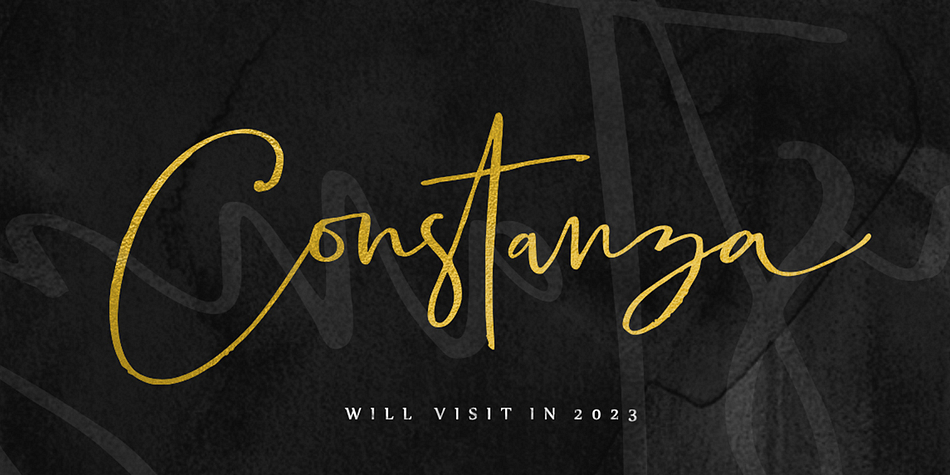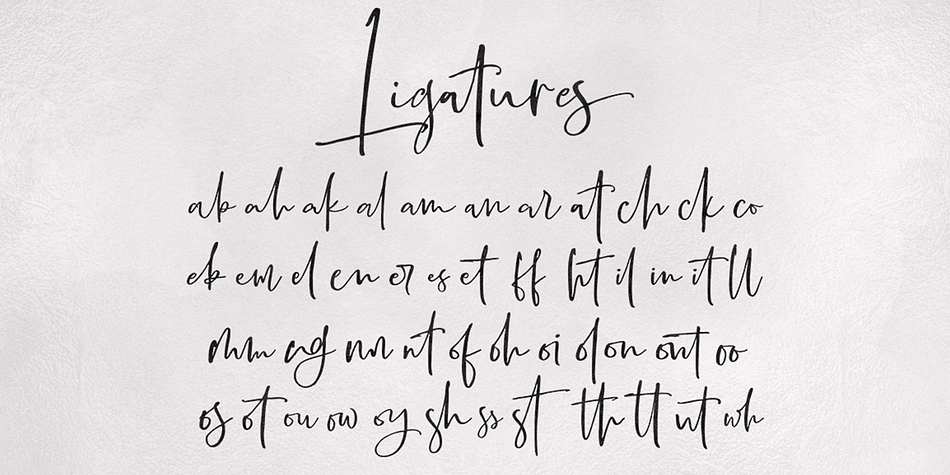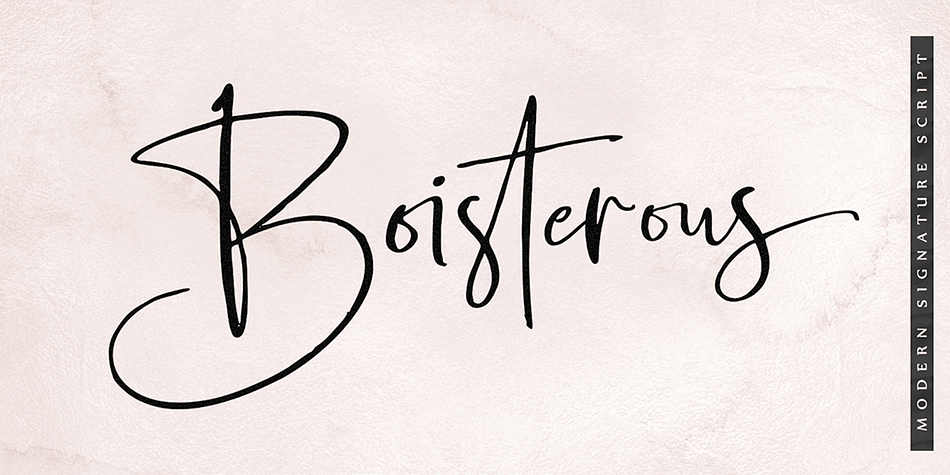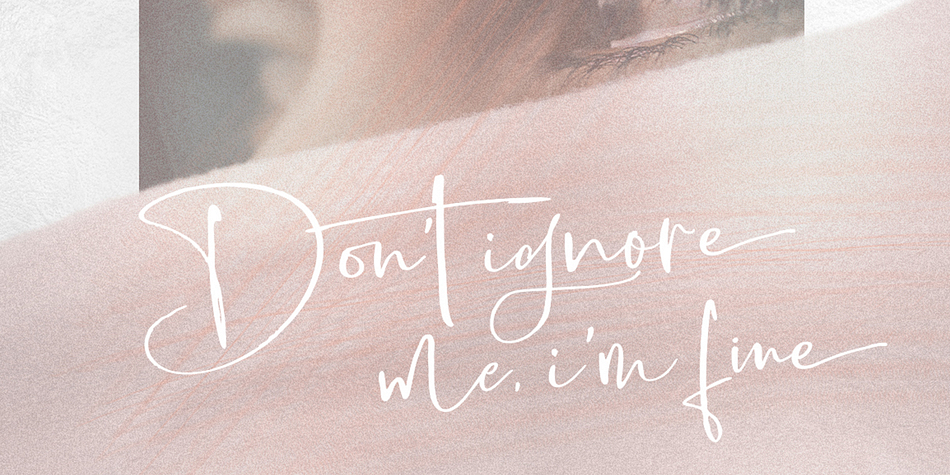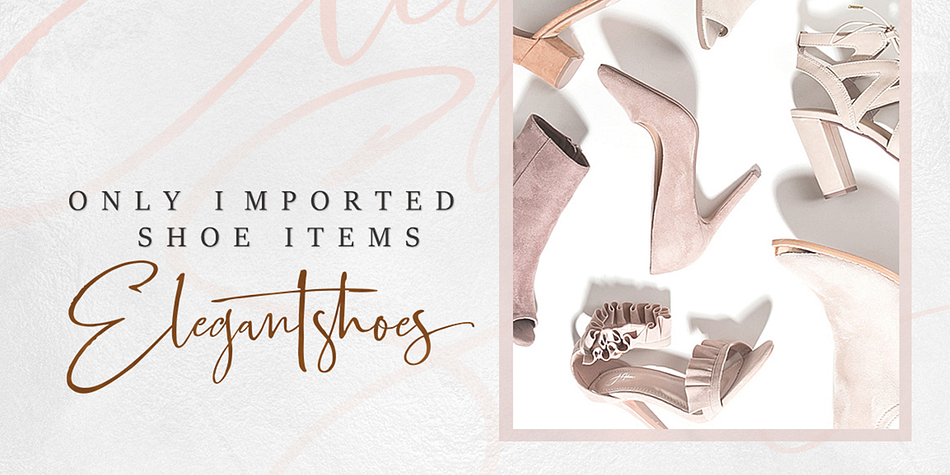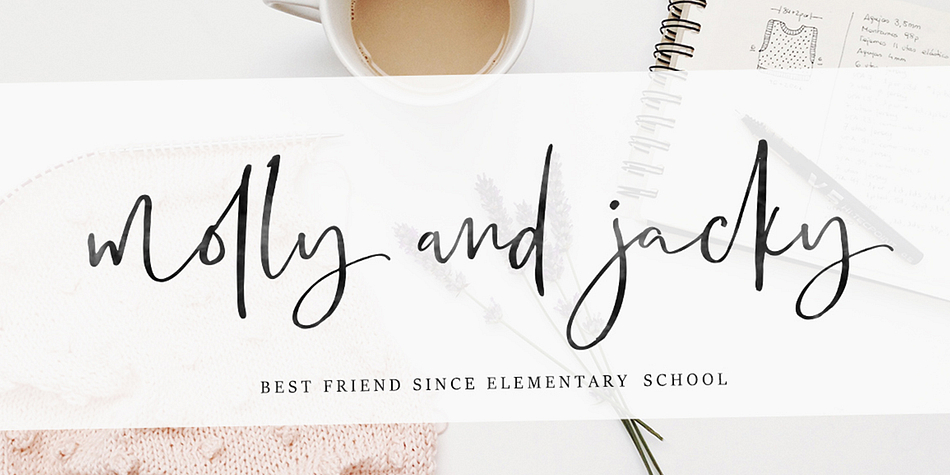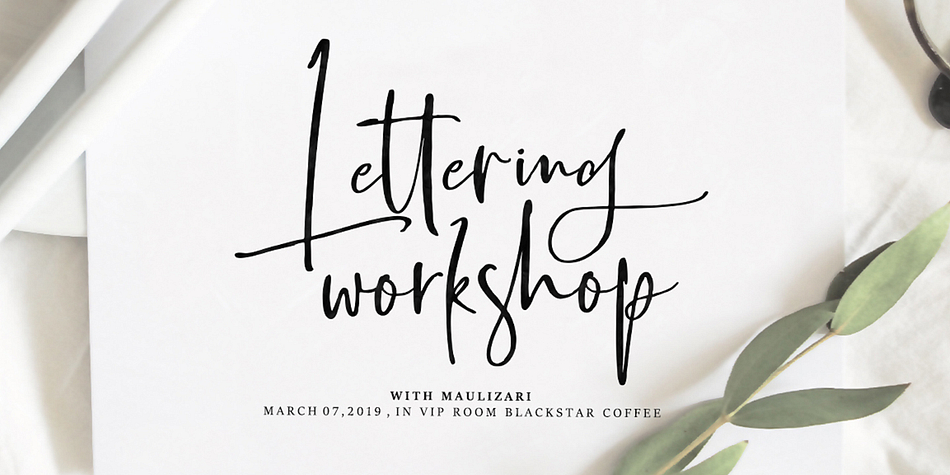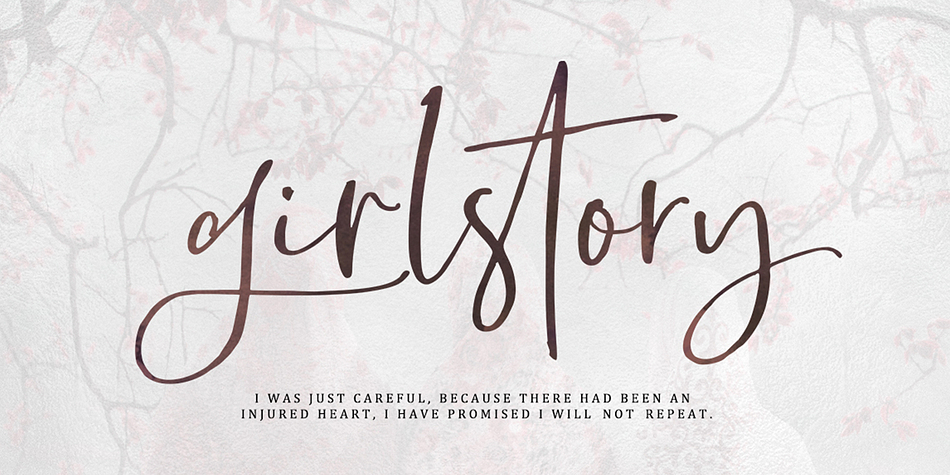
Boisterous Signature Script is a hand drawn font published by Dhan Studio.
Introducing Boisterous, a fashionable and elegant handwriting font, which looks like a signature. This font is intentionally made with unique ligatures and alternates.
Boisterous suitable perfectly for branding, logos, business cards, posters, invitations, greeting cards, news, product packaging, blog posters, all including personal charms etc.
This font is also equipped with unique and interesting ligatures, by using this ligature you can give a real handlettered style:
tt ss ow os on oh nn ll il et en eb ch an ak ut st oy ot ont oi nt mm in ff er el ck ar al ab wh th sh ou oo ol of ng it ht es em co at am ah